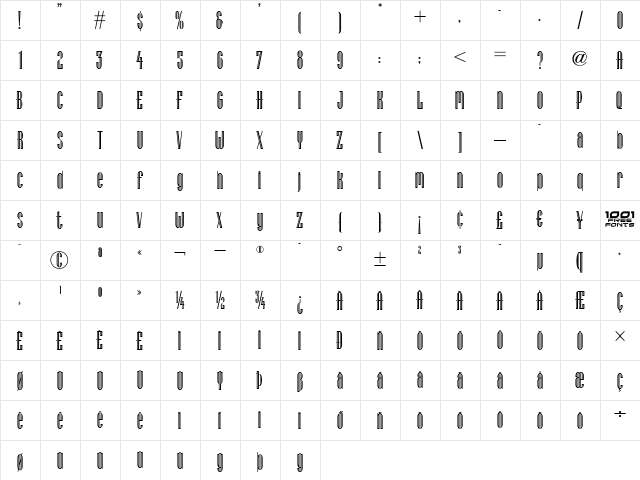
Lagniappe Inline NF Regular
Design Context for Lagniappe Inline NF Typeface
Lagniappe Inline NF brings ornamental detail and strong personality to headlines and identities, where visual impact matters more than quiet functionality.
Font Pairing: Pair with a clean neutral sans-serif for body copy to let Lagniappe Inline NF's character lead without overwhelming the composition.
Pro Tip: Use Lagniappe Inline NF exclusively at display sizes — it was designed to be seen, not read at length. Let a neutral companion handle body copy.